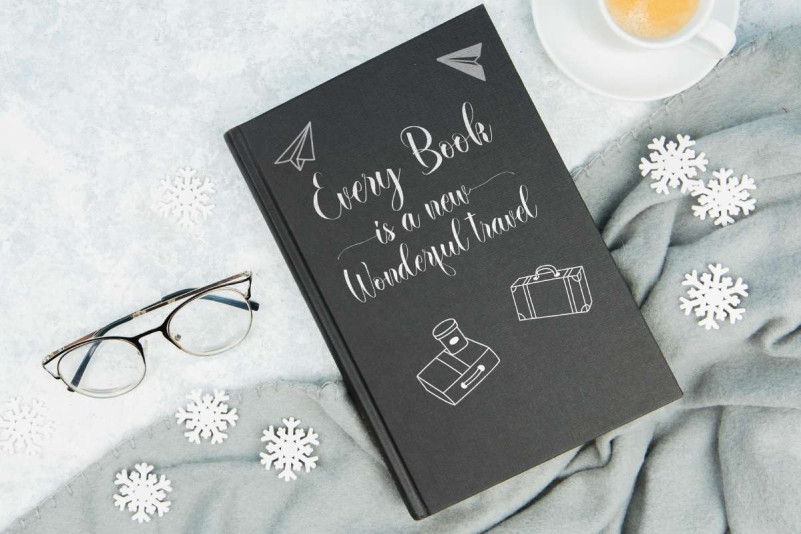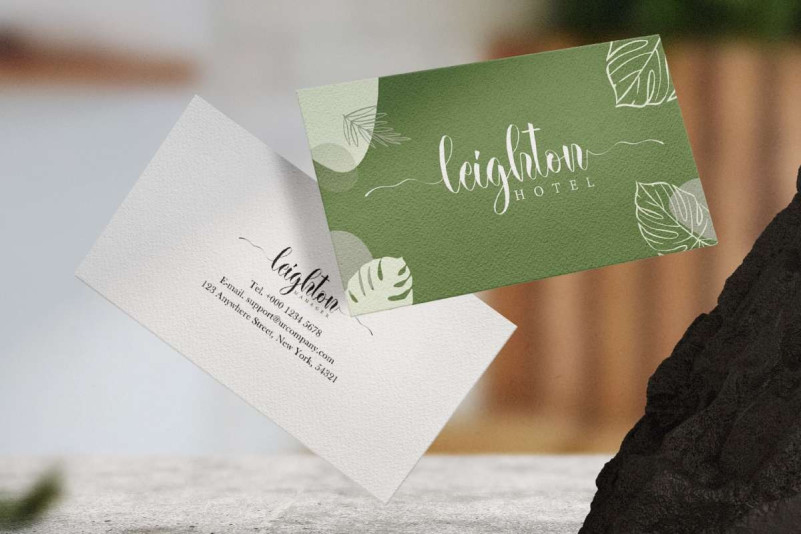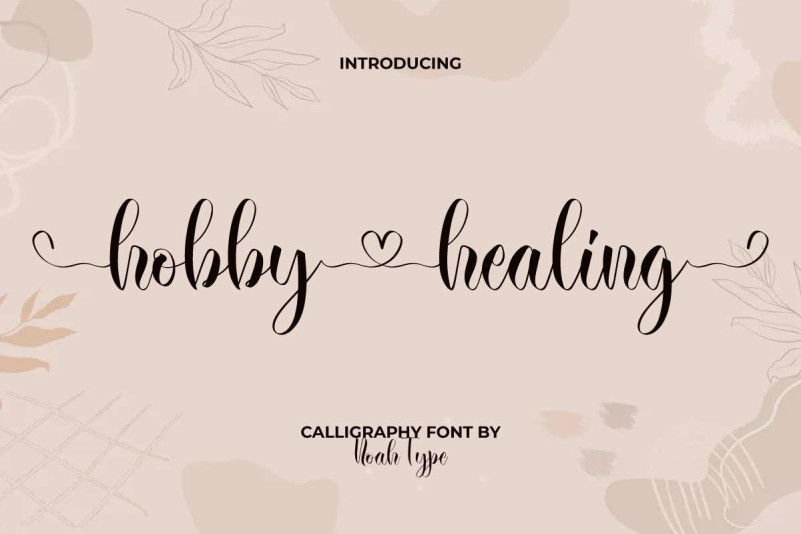
Hobby Healing Font
Hobby Healing Font is a lovely calligraphy font by NoahType with romantic love theme. This font is made of beautiful waving lines that will delight your eyes to produce stunning designs, such as business card, custom design, invitation, label, magazine catalog, menu, poster, product packaging, quotes, watermark, website, and more!
Hobby Healing Font includes full set of Uppercase and Lowercase Basic Characters, Numerals, and Punctuation. It also contain Ligature and Swoosh characters that will add perfection and making it suitable for many industries, such as cosmetic, fashion, florist, furniture, interior design, jewelry and accessories, perfume, skincare, spa and salon, wedding organizer, etc.